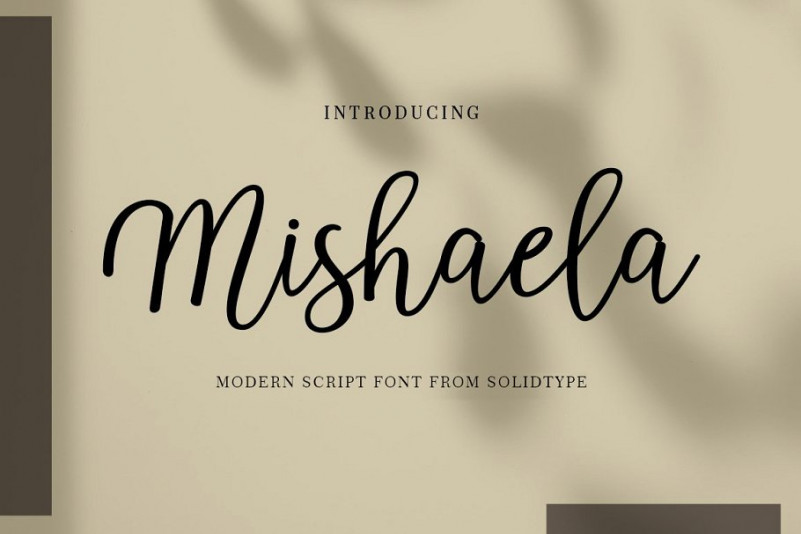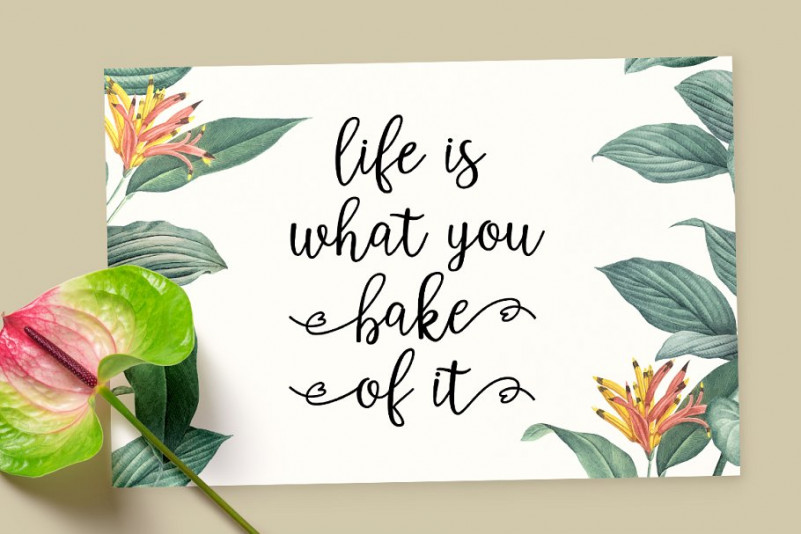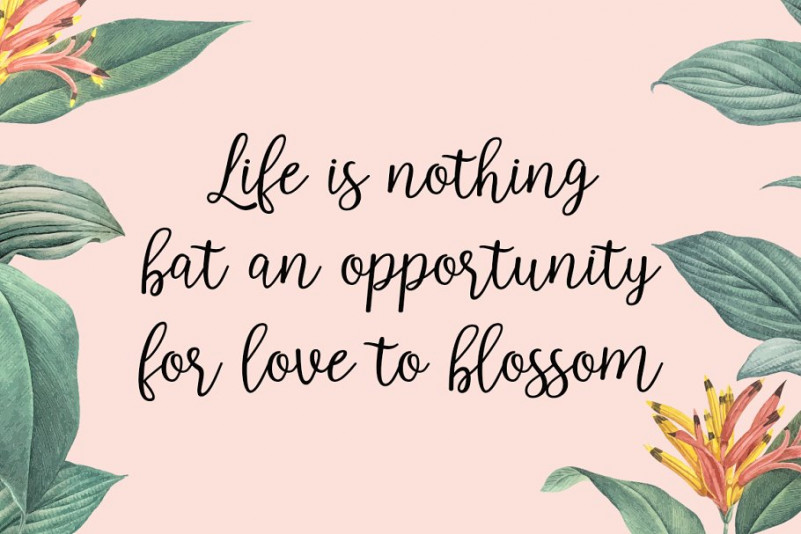
Mishaela Font
Mishaela Script is a lovingly modern script calligraphy, elegant and tasty flow. Features Open type feature, including initial and terminal letters, ligatures and International support for most Western Languages is included.
Perfect to creating modern designs like ads, logos, branding, quotes, poster, wedding invitation and more. that makes the font look fabulous!